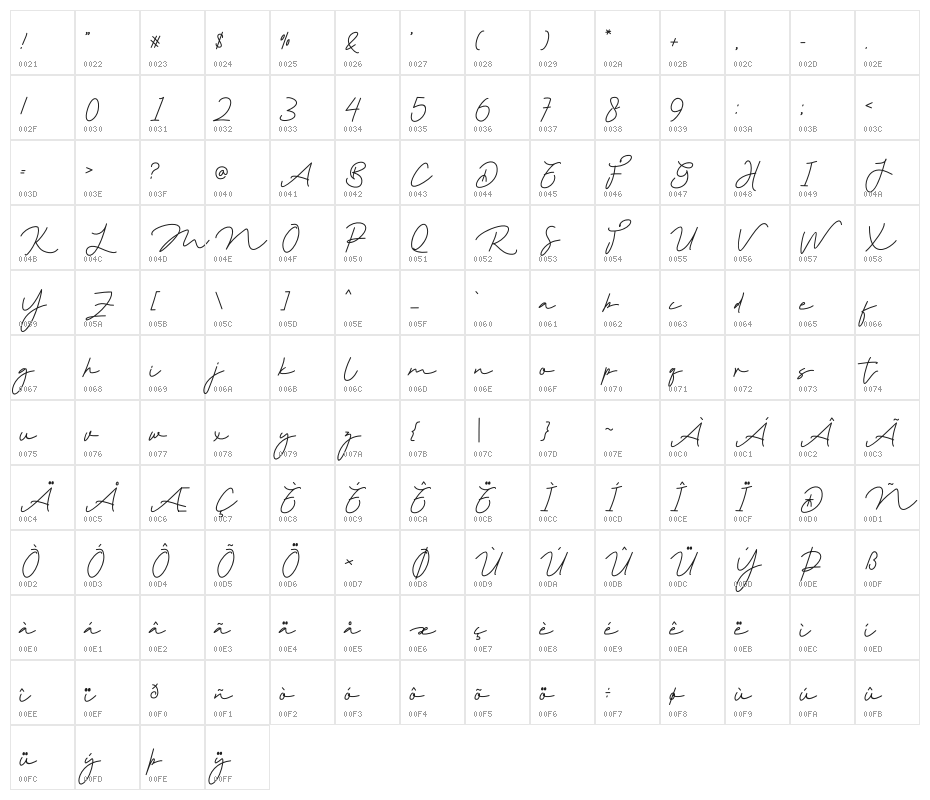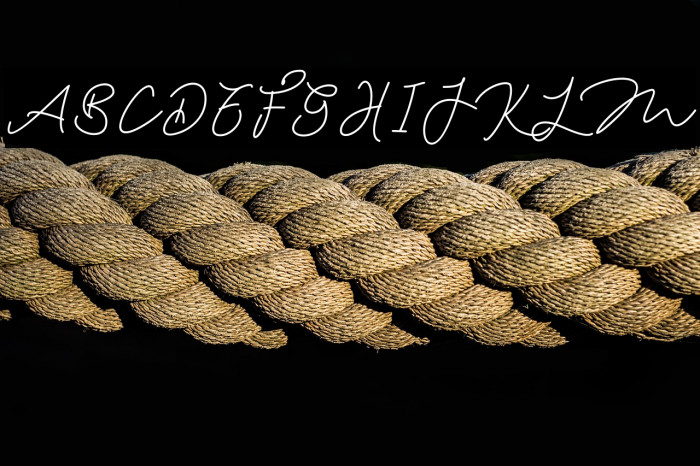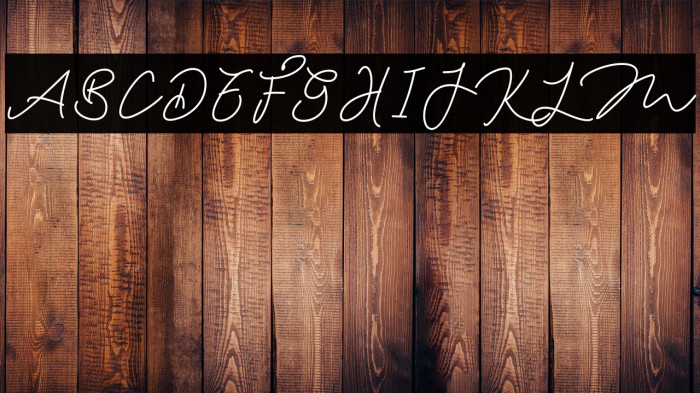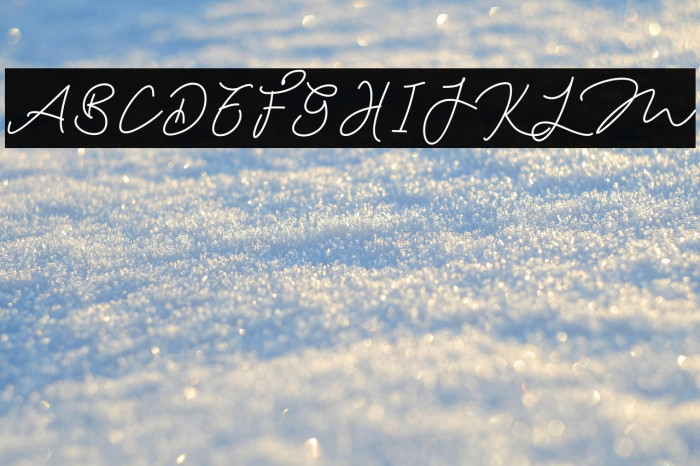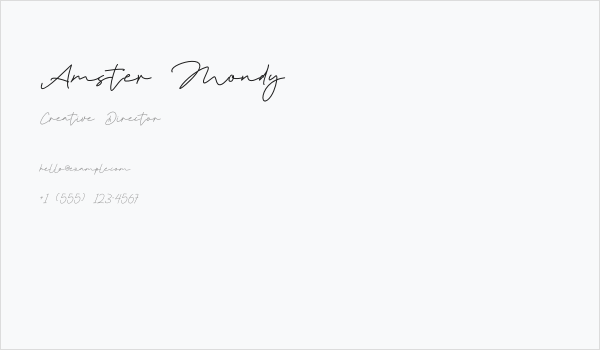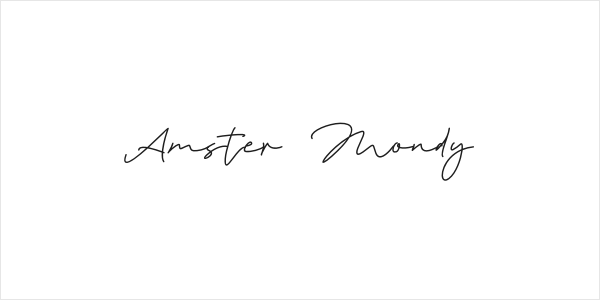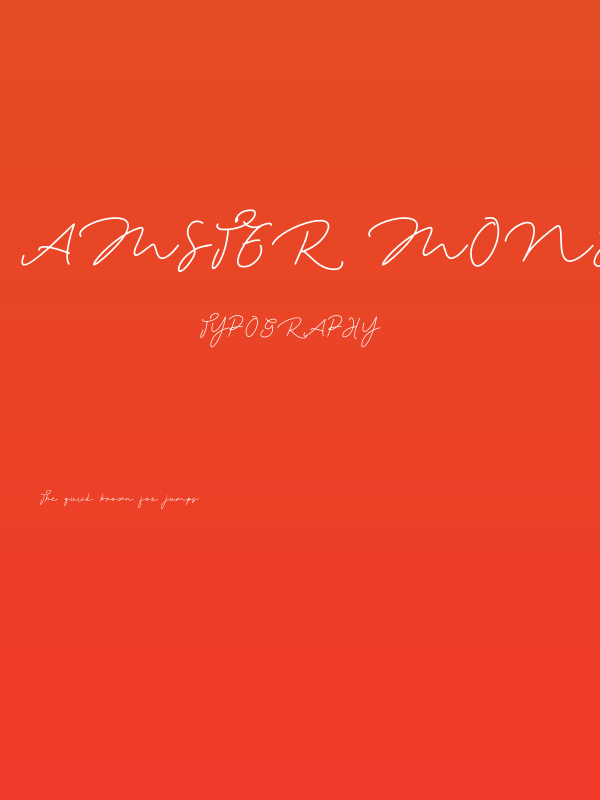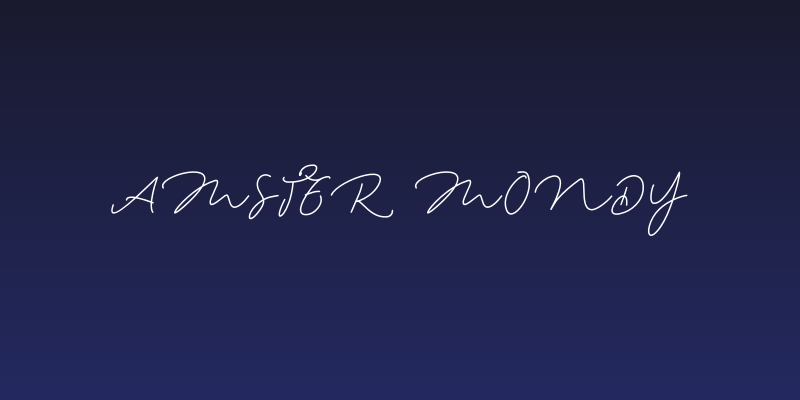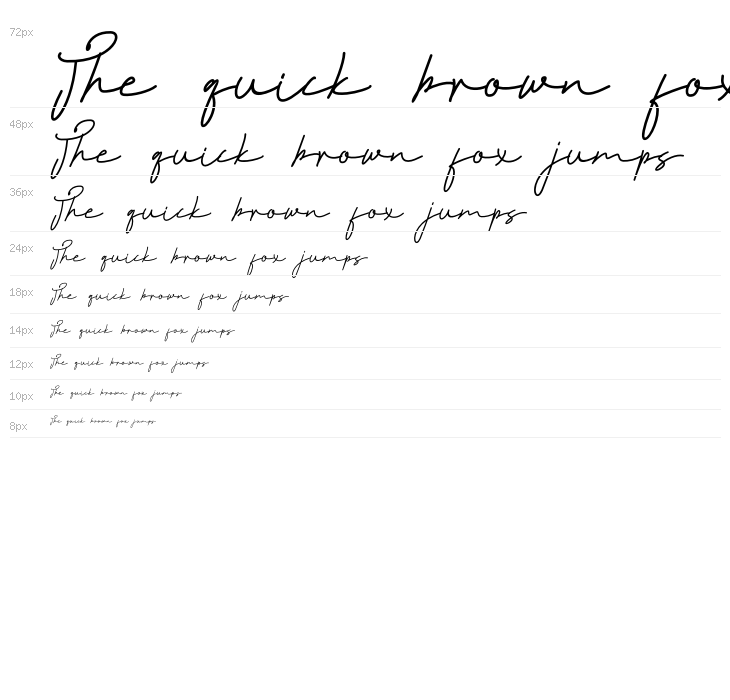
Amster Mondy Font
Amster Mondy Description
This elegant script font features a flowing, handwritten style that exudes sophistication and charm. The uppercase letters are gracefully connected, while the lowercase letters maintain a fluid continuity, making it perfect for conveying a personal touch. The numerals and special characters are crafted with the same attention to detail, ensuring consistency throughout. The font's delicate strokes and subtle curves add a sense of movement and dynamism, making it suitable for a variety of creative projects.
| Overall Style | Elegant, Handwritten |
| Proposed Projects | Ideal for wedding invitations, greeting cards, personal branding, and elegant logo designs. |